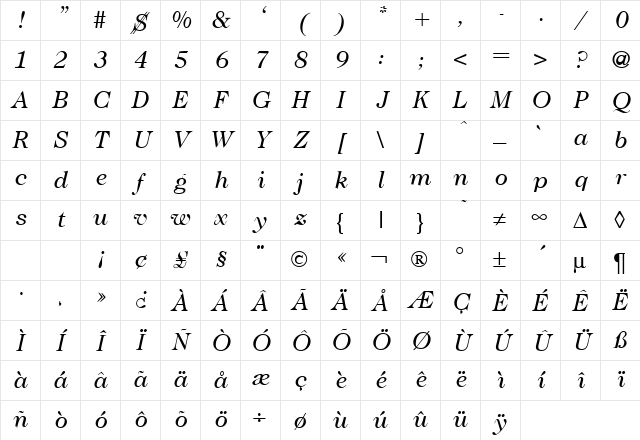
Caslon335 RegularItalic Free Font
Design Context for Caslon335
Caslon335 is a composed and adaptable typeface that performs quietly and consistently across a wide range of design contexts. The slanted form adds forward momentum and visual energy.